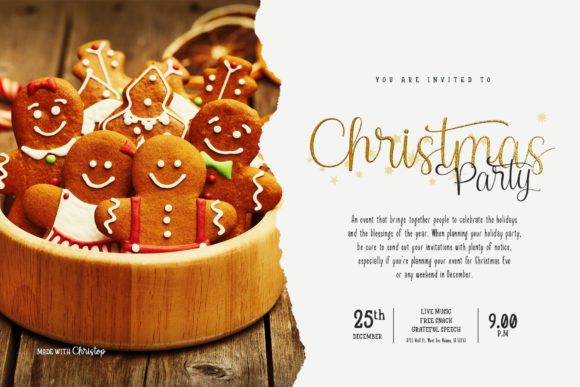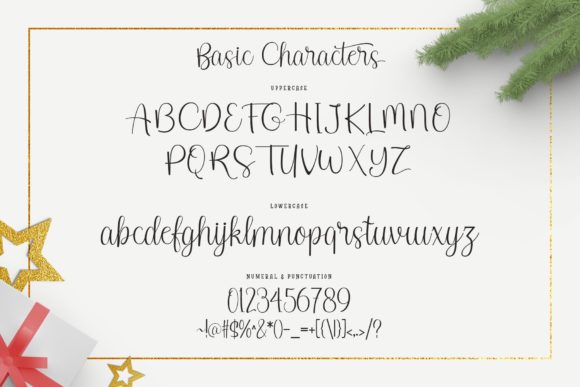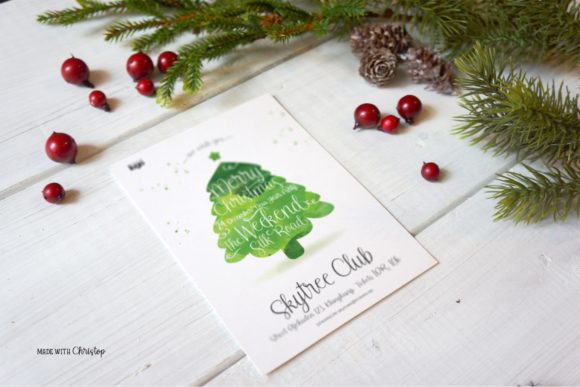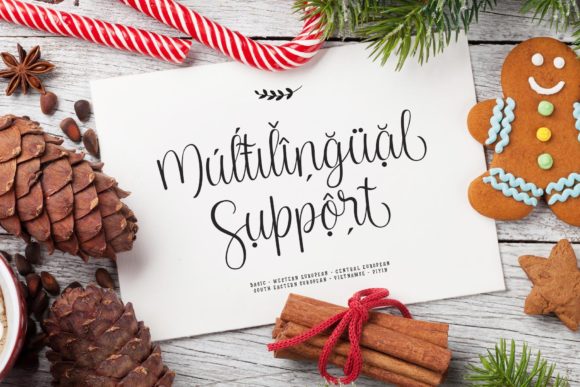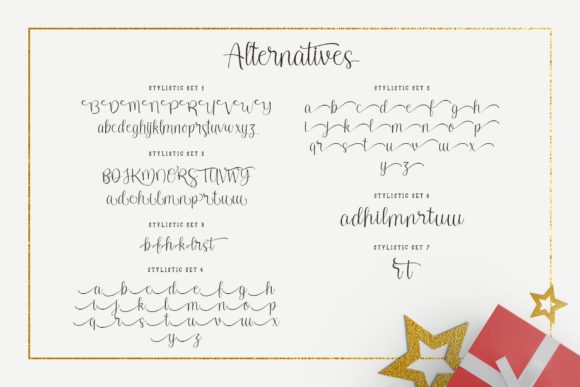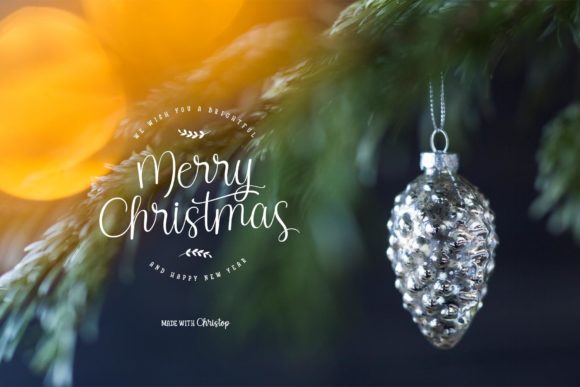
Introducing Christop Font: The Epitome of Elegance and Sophistication
In the world of typography, few fonts manage to convey the essence of luxury and refinement as effortlessly as Christop Font. This exquisite script font is a masterclass in elegance, designed to elevate any project to new heights of sophistication. Whether you’re a designer, craftsperson, or simply someone with an eye for detail, Christop Font is sure to captivate and inspire.
The Design Philosophy Behind Christop Font
Christop Font is more than just a collection of letters; it’s an experience. Its design is rooted in a deep understanding of what makes a font truly special: the subtle nuances, the flowing connections, and the sense of movement that brings words to life. Each character in Christop Font has been meticulously crafted to ensure that it not only stands alone beautifully but also flows seamlessly with its neighbors, creating a harmonious and visually appealing text.
Key Features of Christop Font
• Stylish Alternates and Ligatures: One of the standout features of Christop Font is its extensive range of stylish alternates and ligatures. These allow designers to add a personal touch to their work, making each piece truly unique. Whether you’re looking for a classic and understated look or something more flamboyant and eye-catching, Christop Font has you covered.
• PUA Encoding: Christop Font is PUA (Private Use Area) encoded, which means accessing the additional glyphs and swashes is incredibly straightforward. This feature is especially useful for designers who want to experiment with different styles and effects without the hassle of complicated font management.
• Versatility: Christop Font’s versatility is one of its most compelling attributes. It’s suitable for a wide range of projects, from luxury branding and high-end product packaging to elegant wedding invitations and sophisticated digital media. The font’s adaptability makes it an invaluable addition to any designer’s toolkit.
Why Choose Christop Font?
With so many fonts available, what sets Christop Font apart? The answer lies in its unique blend of classic elegance and modern versatility. Christop Font doesn’t just convey information; it tells a story of refinement, taste, and attention to detail. By choosing Christop Font, designers and crafters can instantly elevate their work, adding a layer of sophistication that resonates with audiences.
Applications of Christop Font
The applications of Christop Font are as diverse as its features. Here are a few examples of how this exceptional font can be used:
• Branding and Logo Design: Create a lasting impression with a logo that exudes luxury and elegance.
• Wedding and Event Stationery: Add a touch of sophistication to wedding invitations, menus, and other event materials.
• Packaging Design: Stand out on store shelves with product packaging that combines style and refinement.
• Digital Media: Enhance your digital content, from website headers to social media graphics, with a font that commands attention.
Christop Font is a shining example of typographic excellence, offering designers and crafters a powerful tool to express their creativity and elevate their work. With its stylish alternates, ligatures, PUA encoding, and unparalleled versatility, Christop Font is poised to become a favorite among those who demand the best. Whether you’re crafting a brand identity, designing an event, or simply exploring your creative side, Christop Font invites you to experience the art of typography at its finest.